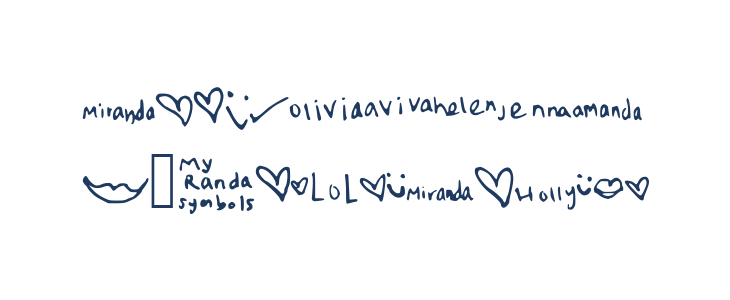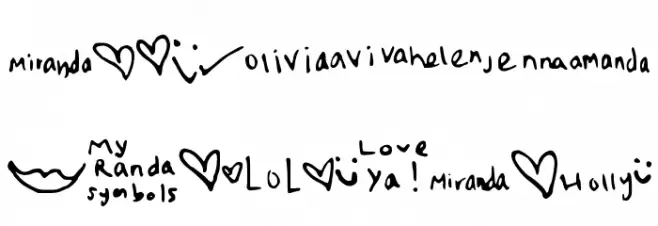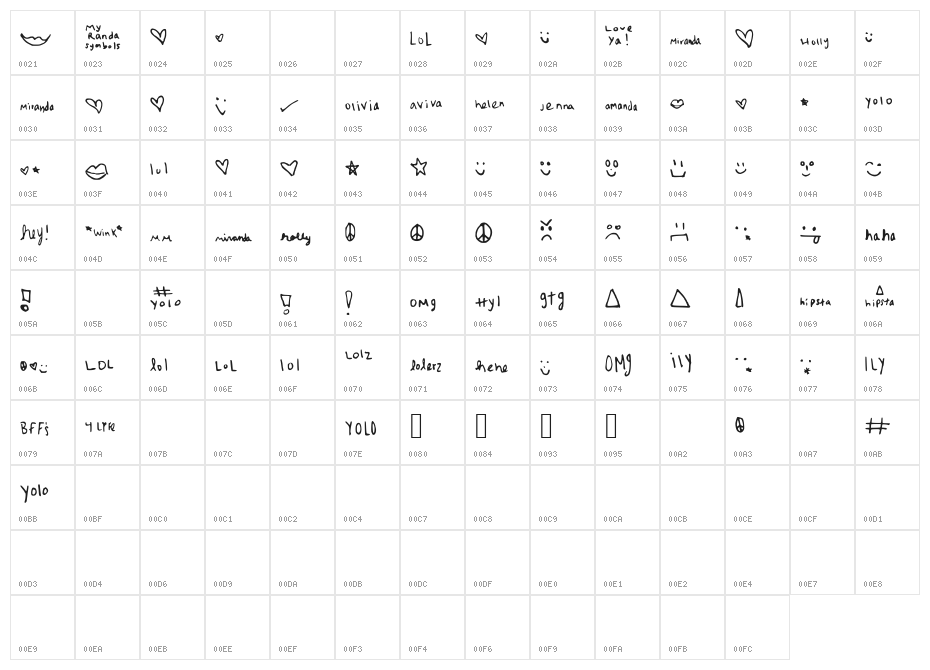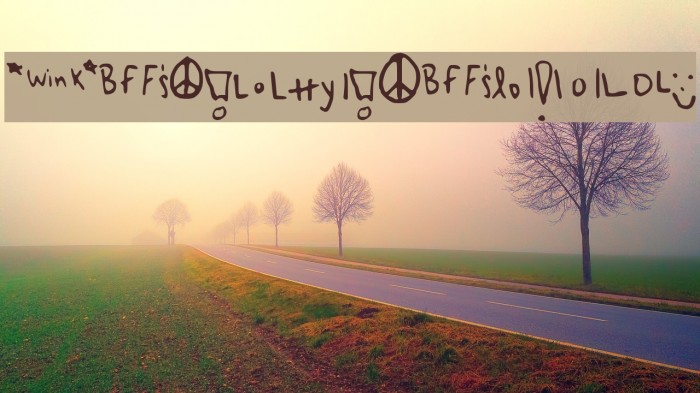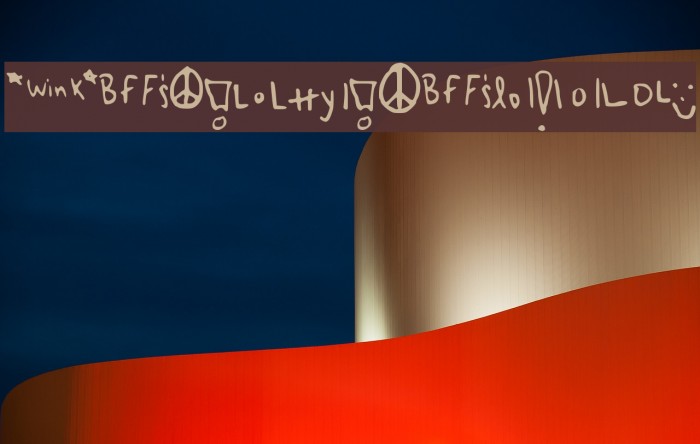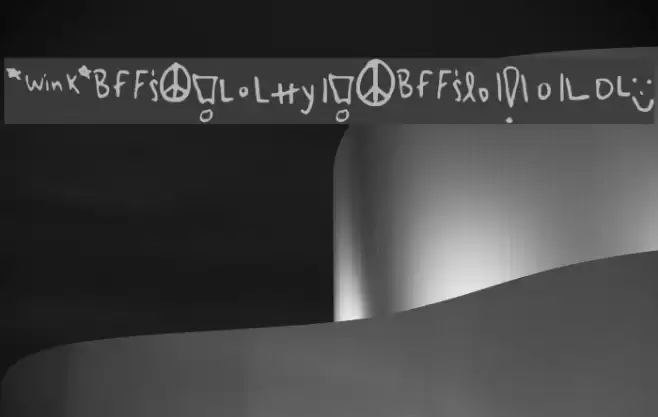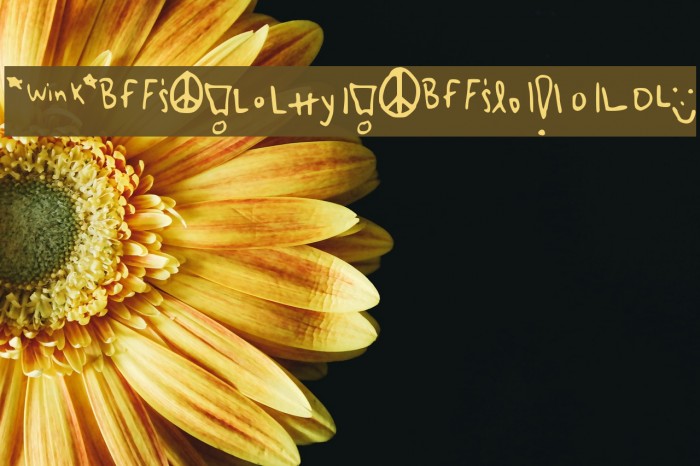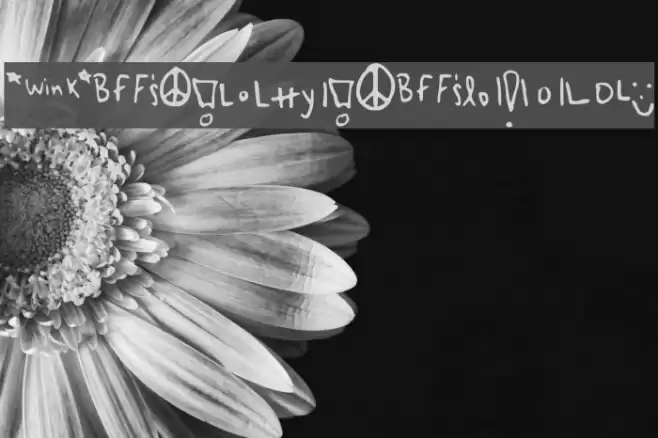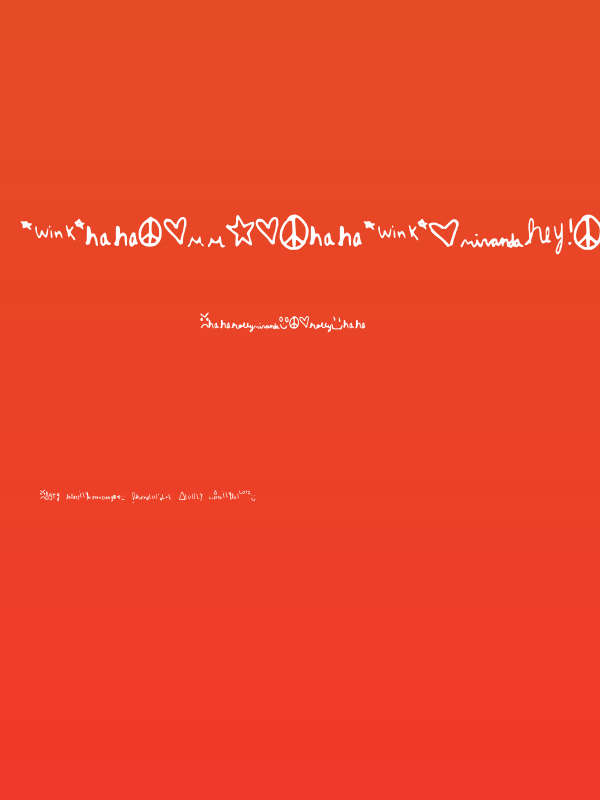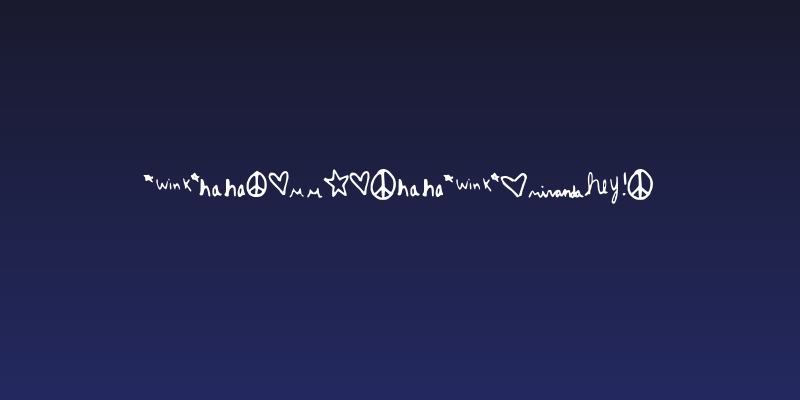
MyRandaSymbols Font
MyRandaSymbols Description
This collection of symbols and playful doodles is characterized by a whimsical and informal style. The elements include hearts, stars, smiley faces, and various abstract shapes, all drawn with a casual, hand-drawn aesthetic. The strokes are uneven, adding to the charm and spontaneity of the design. This set is perfect for adding a personal touch to creative projects, conveying a sense of fun and lightheartedness. The symbols are not uniform, with varying sizes and orientations, enhancing the playful nature of the collection.
| Use Case | Decorative elements, Personal projects |
| Proposed Projects | Ideal for greeting cards, social media graphics, personal notes, and DIY projects where a fun and casual vibe is desired. |